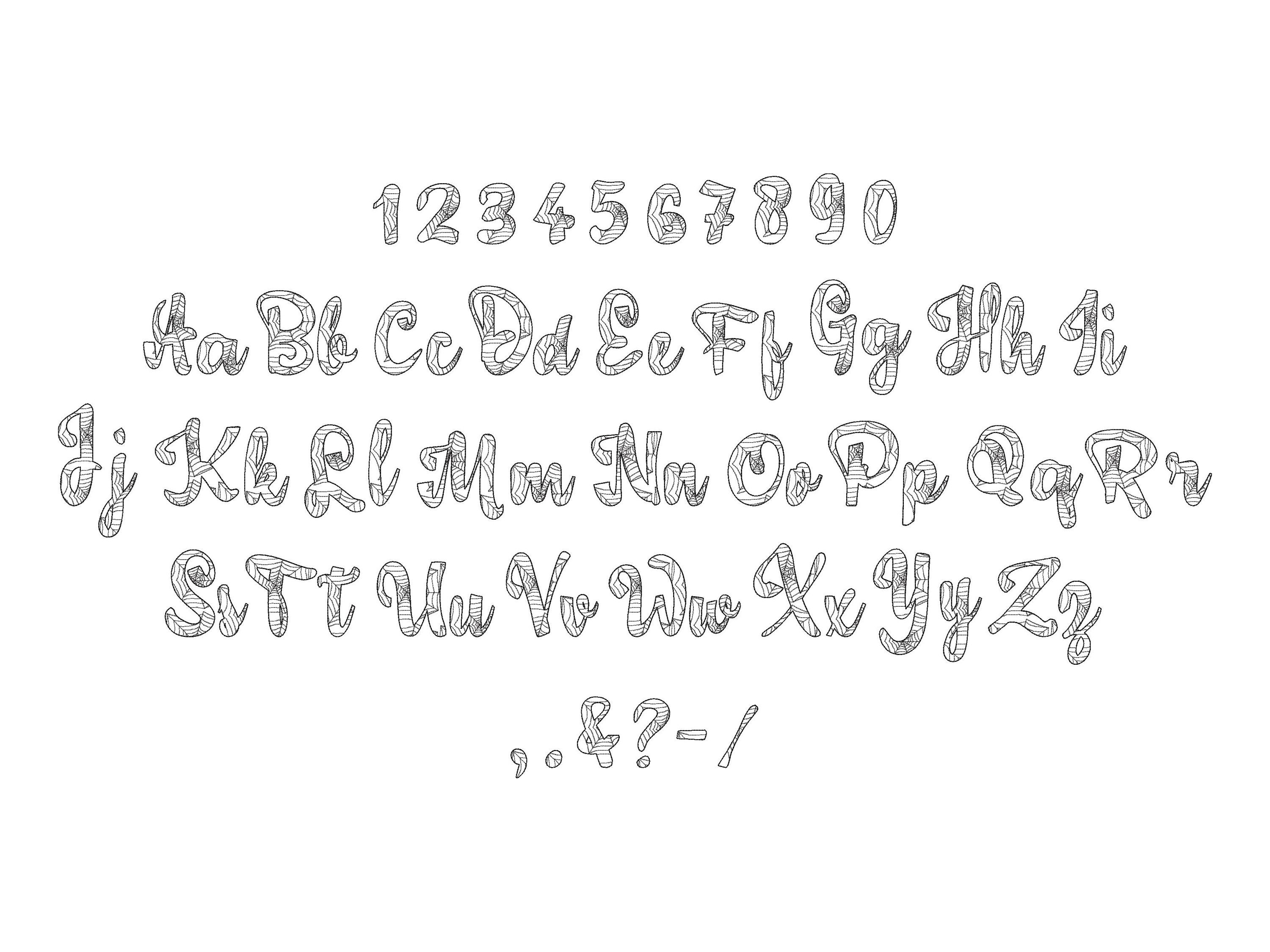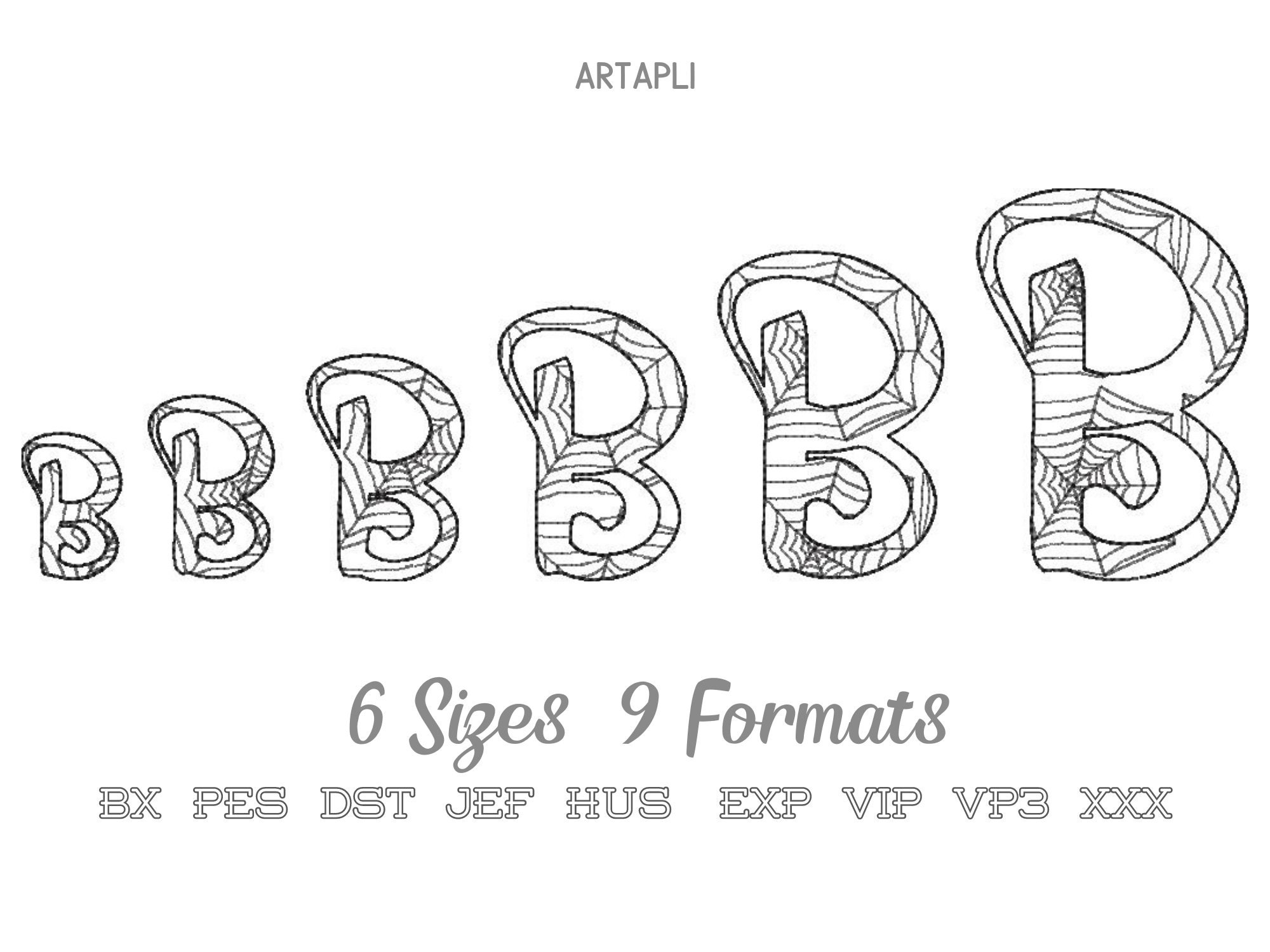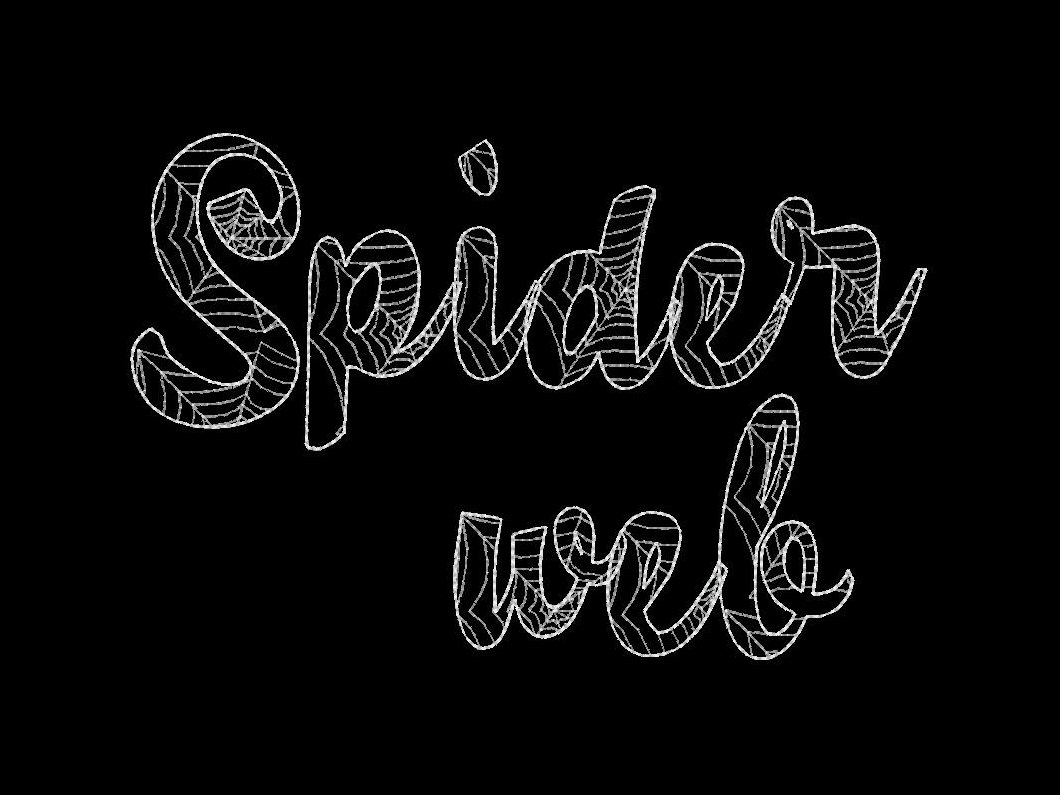
Spider Web Halloween Font light sketch outline machine embroidery designs alphabet letters multiple sizes, kids spooky scare name monogram
These are quick stitch designs, they look like lace, the background fabric looks through. Stunning effect!